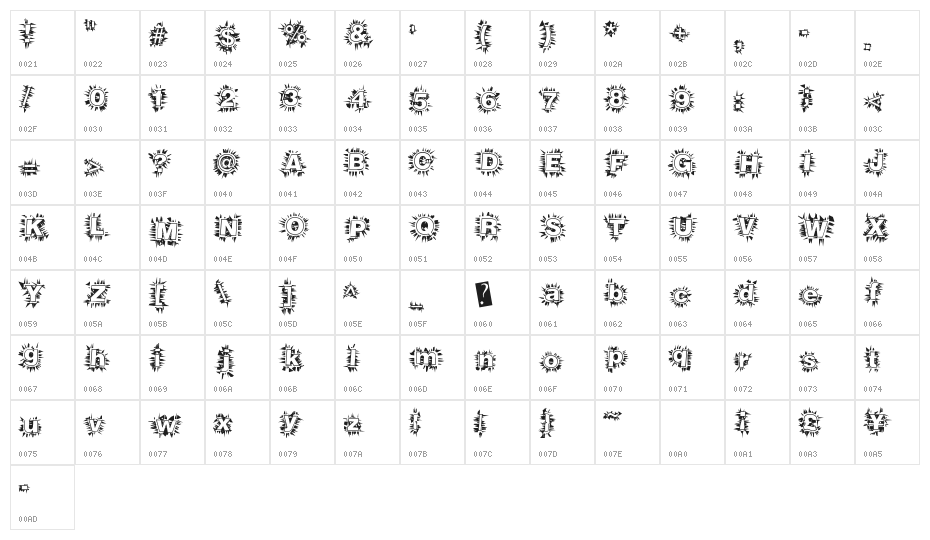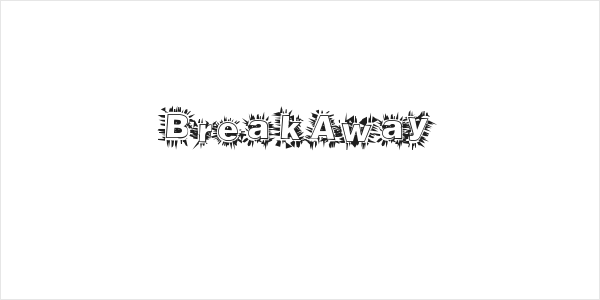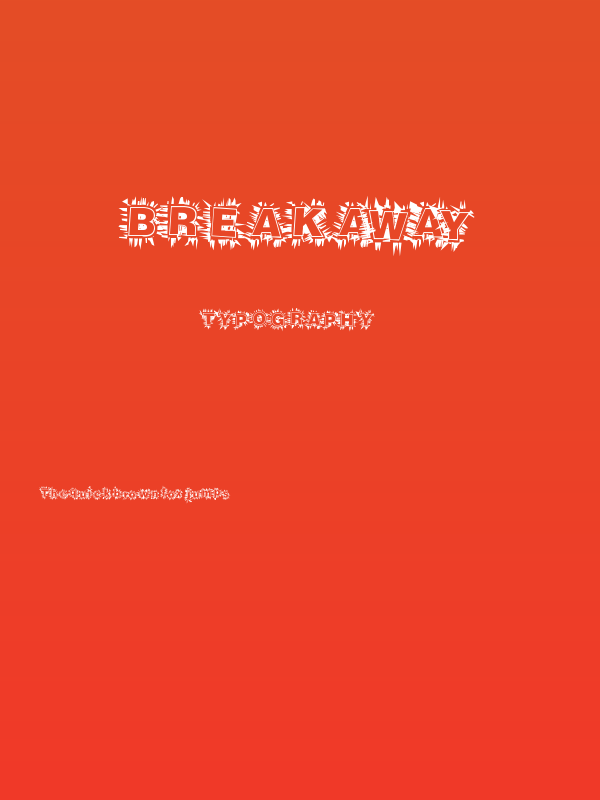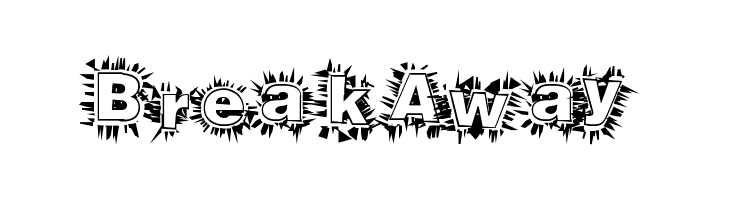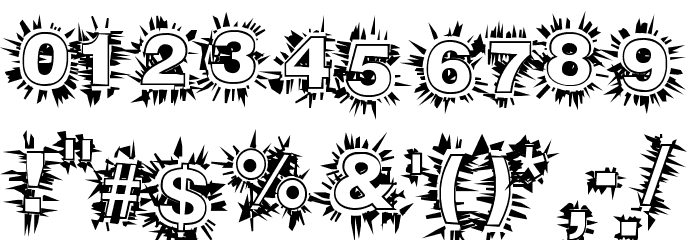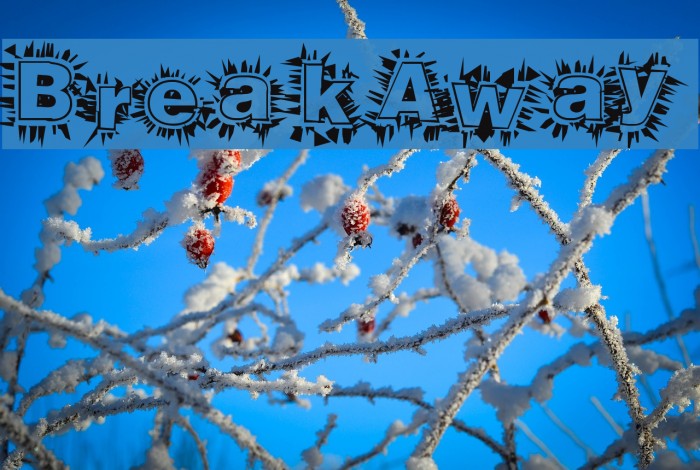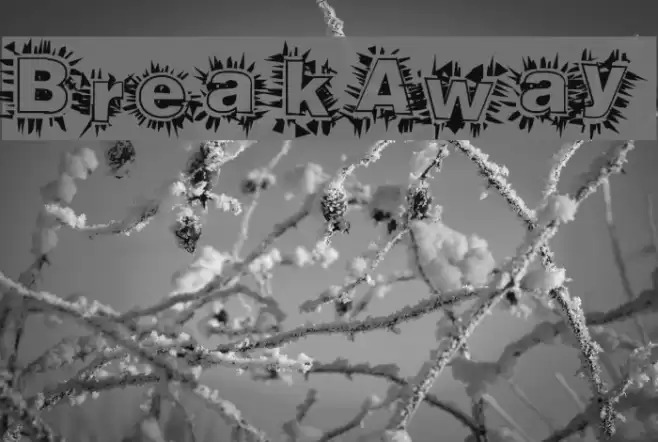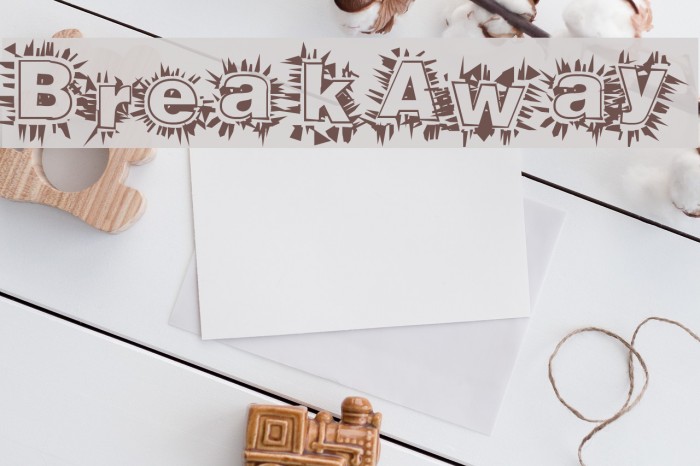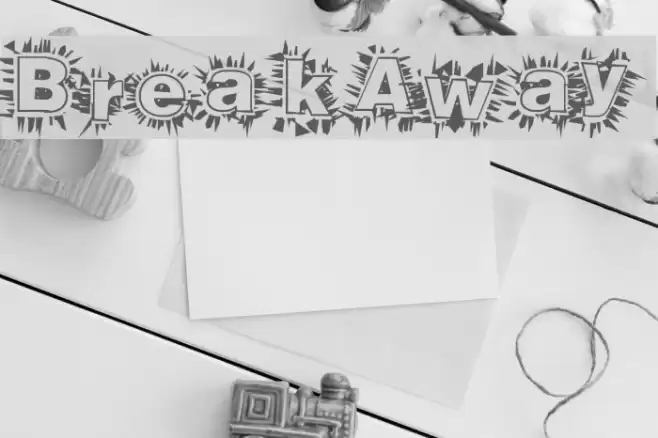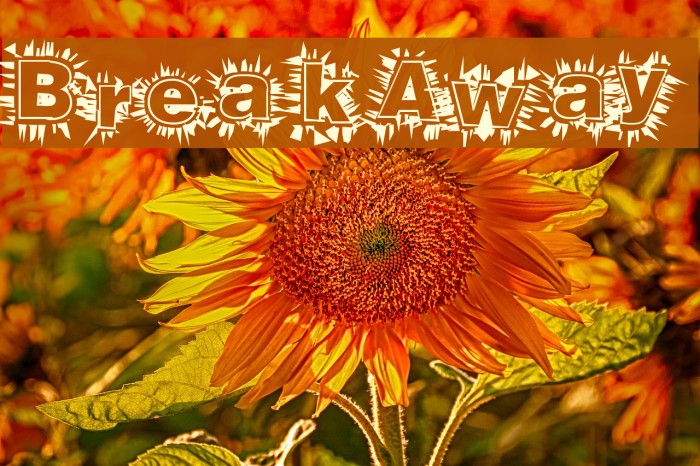
BreakAway Font
| Рекомендуемые проекты | Ideal for music album covers, event posters, video game titles, and any project needing a bold, eye-catching design. |